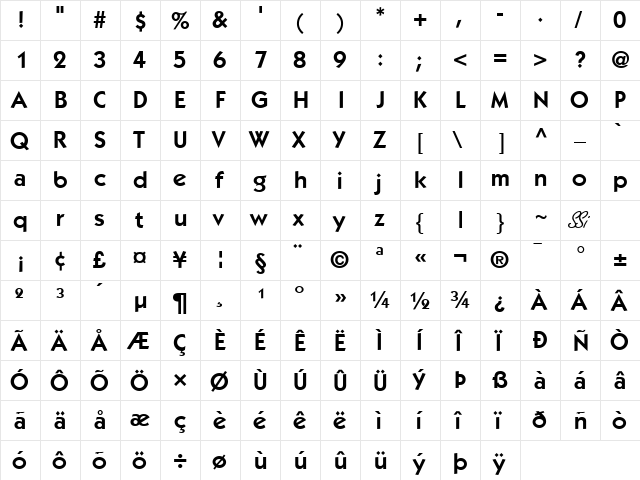
Performa Book SSi Semi Bold
Design Context for Performa Book SSi Typeface
Performa Book SSi is a composed and adaptable typeface that performs quietly and consistently across a wide range of design contexts. The heavy weight commands attention and anchors typographic hierarchies.